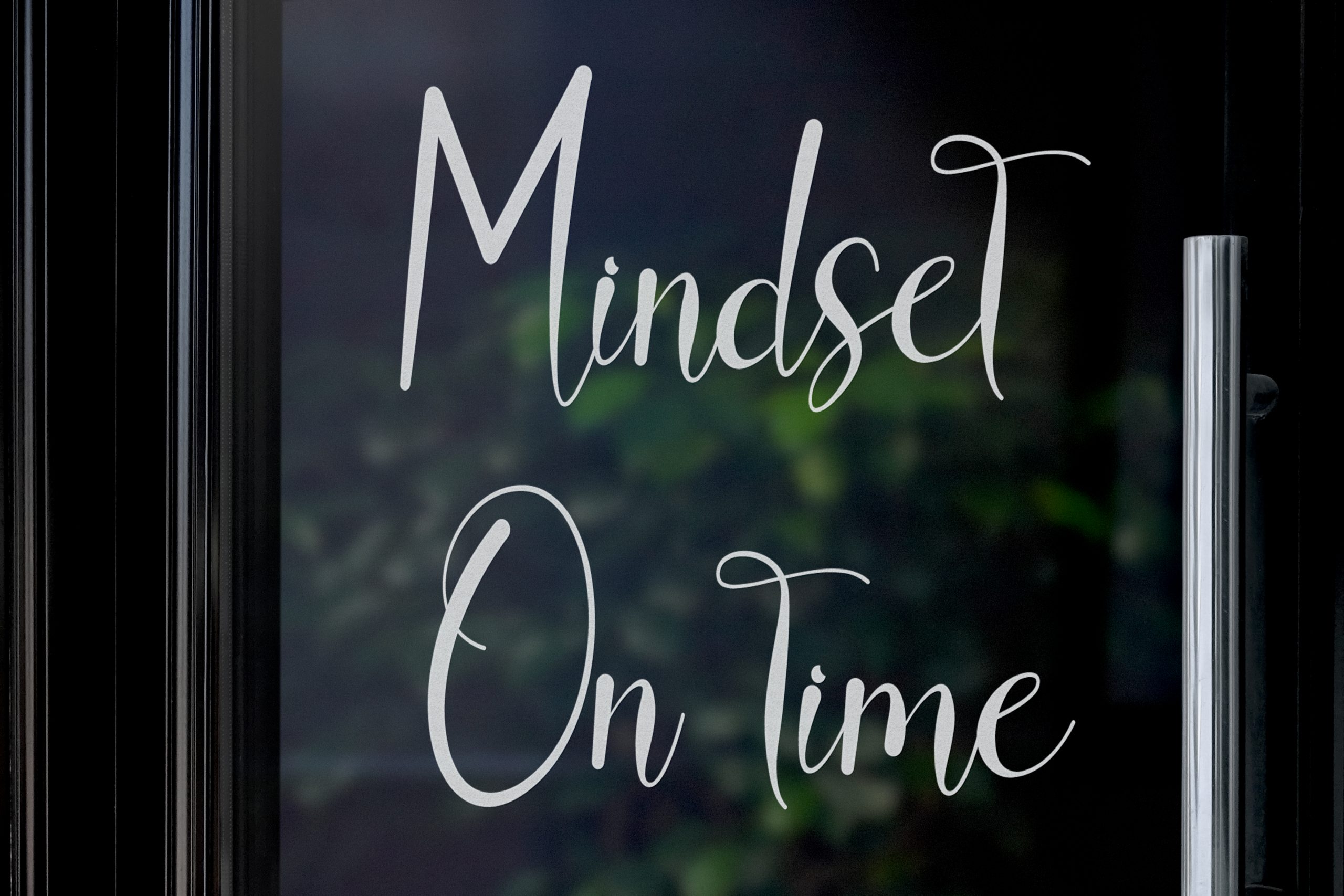
Ghostship Script Font
This is a stylish handwritten font with a unique feel and a stunning impact. It will add a luxury spark to any design project that you wish to create! This font is PUA encoded which means you can access all of the amazing glyphs and ligatures with ease!